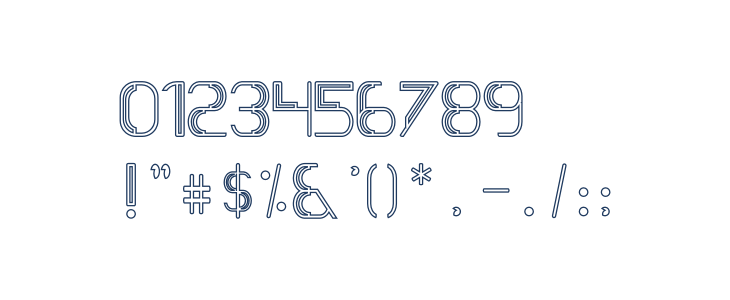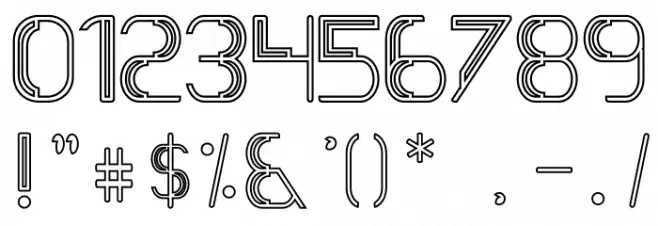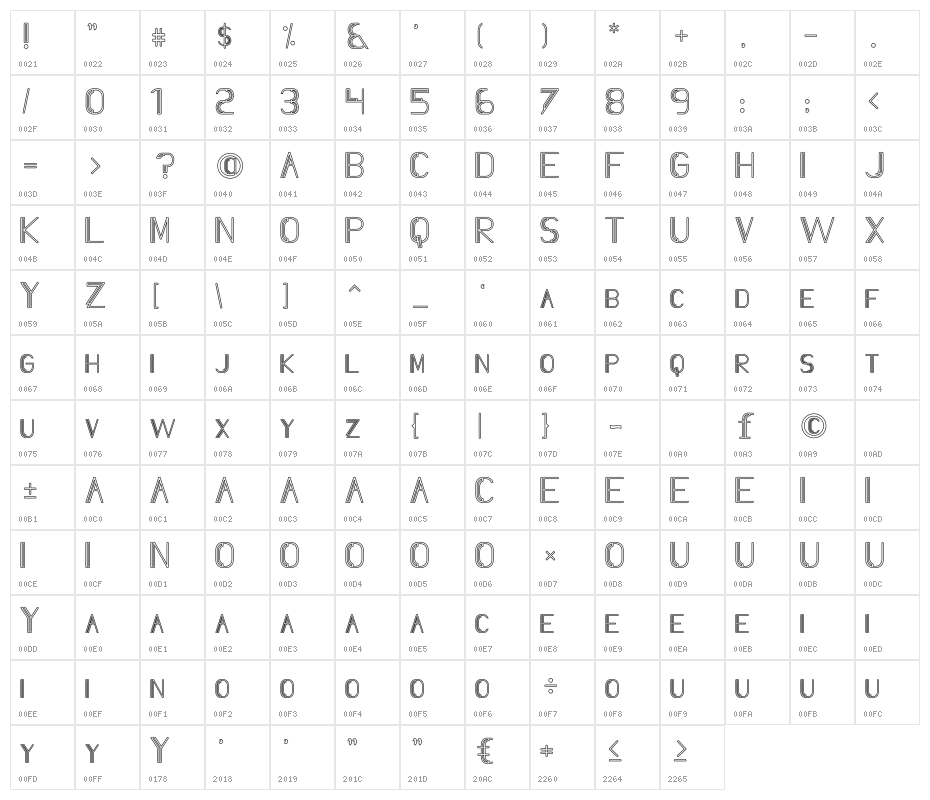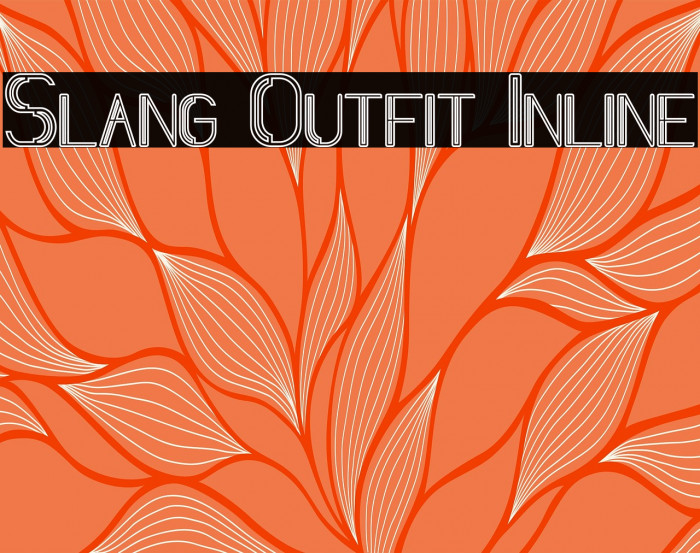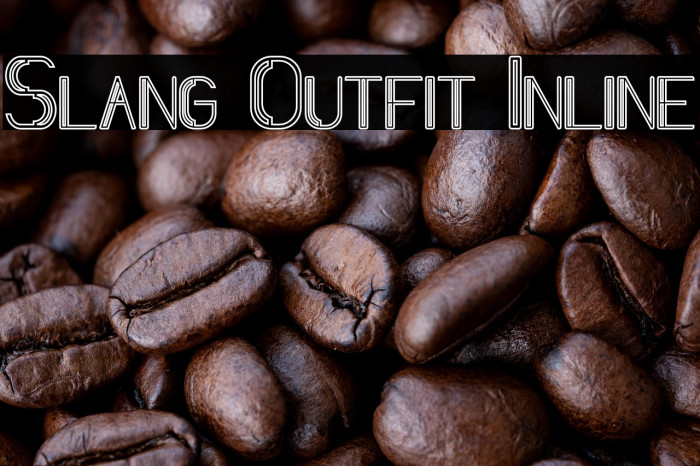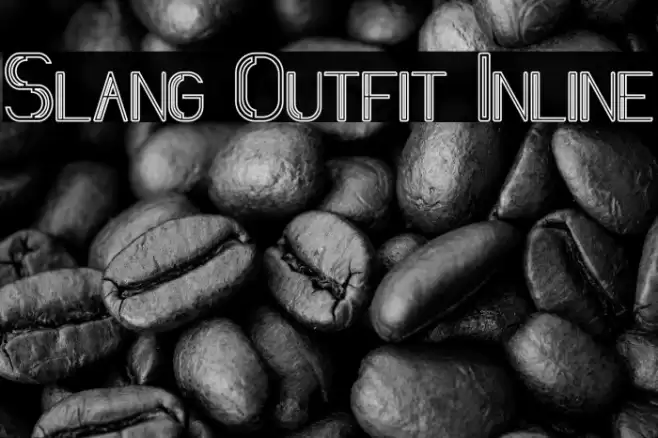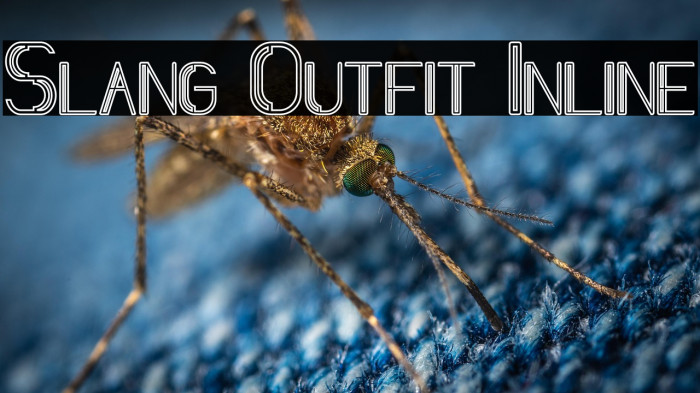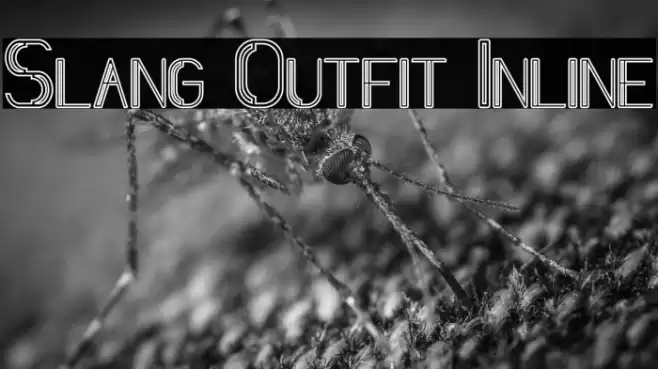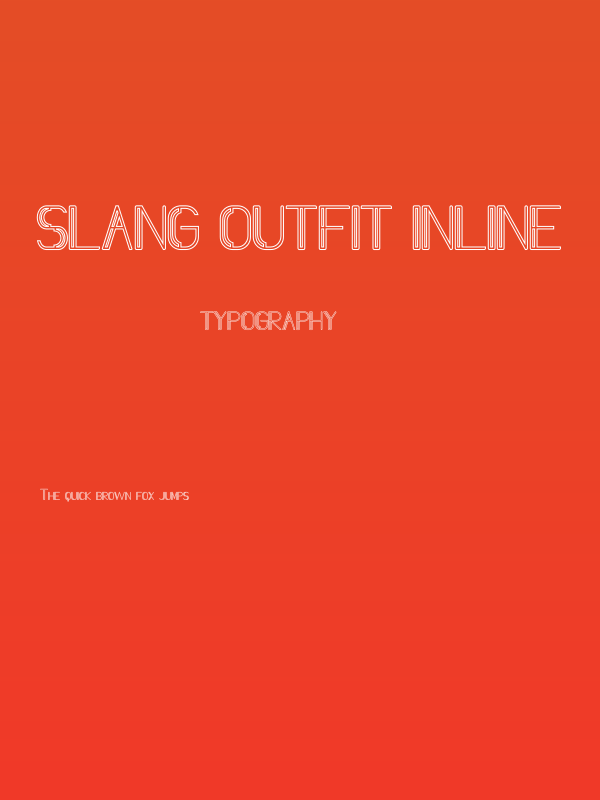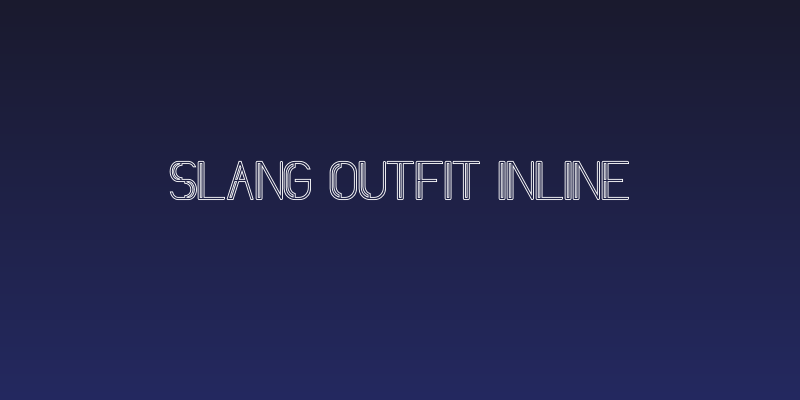
Slang Outfit Inline Font
Slang Outfit Inline Description
This font features a unique inline design, characterized by its hollow, outlined letters that create a striking visual effect. The geometric structure of each character is consistent, with sharp angles and clean lines that give it a modern and futuristic appearance. The uppercase and lowercase letters maintain a uniform style, while the numerals and special characters complement the overall aesthetic. The font's distinct inline style makes it ideal for creating eye-catching headlines and logos, where a bold and innovative look is desired.
Proposed ProjectsIdeal for branding, logos, posters, and modern digital interfaces.